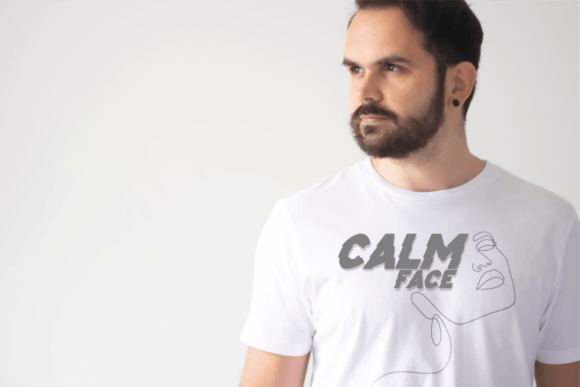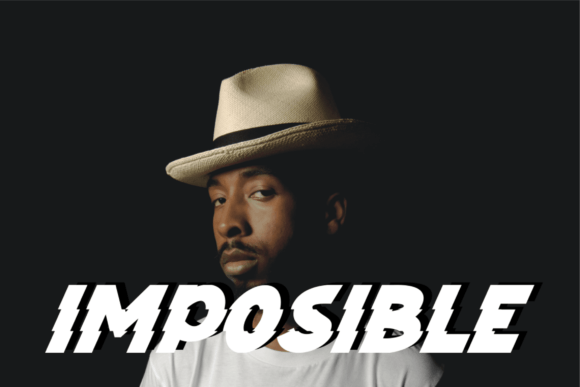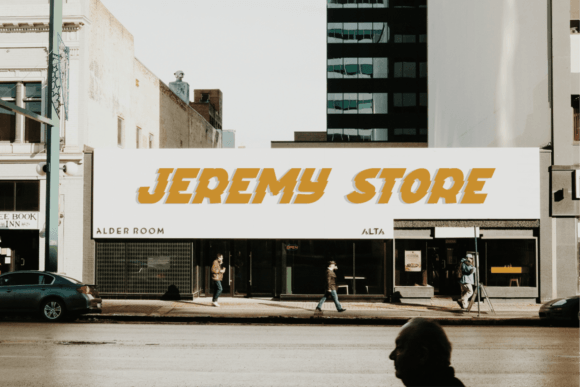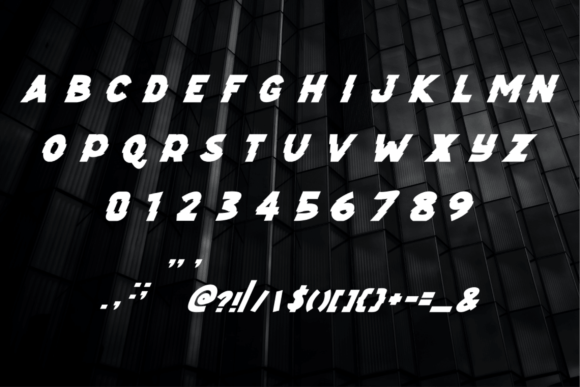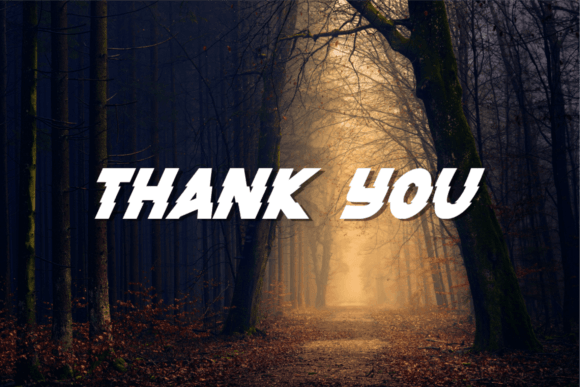
Unleash Your Creativity with Ghostree Font: A Bold and Authentic Display Font
In the world of typography, fonts play a crucial role in conveying messages, expressing emotions, and creating a lasting impression. For designers, crafters, and branding enthusiasts, finding the perfect font can be a daunting task. However, if you’re looking for a bold and authentic display font that can elevate your branding projects, look no further than Ghostree Font. In this article, we’ll explore the features, benefits, and uses of Ghostree Font, and why it’s a must-have for any creative project.
What is Ghostree Font?
Ghostree Font is a bold and authentic display font designed to make a statement. Its unique and striking appearance makes it perfect for a wide range of applications, from logos and t-shirt printing to e-sport and more. The font’s bold and authentic style gives it a distinctive edge, setting it apart from other fonts in the market.
Key Features of Ghostree Font
- Bold and Authentic Style: Ghostree Font boasts a bold and authentic style that commands attention and makes a lasting impression.
- Versatility: The font is suitable for a wide range of contexts, from branding and advertising to e-sport and fashion.
- High-Quality Design: Ghostree Font is designed with precision and attention to detail, ensuring a high-quality appearance in any project.
- Ease of Use: The font is easy to use and can be easily integrated into various design software and platforms.
Benefits of Using Ghostree Font
So, why choose Ghostree Font for your next project? Here are some benefits of using this amazing font:
- Stand Out from the Crowd: With Ghostree Font, you can create unique and eye-catching designs that set you apart from the competition.
- Professional Look and Feel: The font’s bold and authentic style gives your designs a professional look and feel, perfect for branding and advertising projects.
- Time-Saving: Ghostree Font is easy to use and can save you time and effort in creating stunning designs.
Use Cases for Ghostree Font
Ghostree Font is a versatile font that can be used in a variety of contexts. Here are some use cases for this amazing font:
- Logo Design: Create a bold and memorable logo for your brand with Ghostree Font.
- T-Shirt Printing: Design stunning t-shirts with Ghostree Font, perfect for e-sport, fashion, and more.
- E-Sport: Use Ghostree Font to create eye-catching e-sport designs, including jerseys, posters, and more.
- Branding and Advertising: Elevate your branding and advertising projects with Ghostree Font’s bold and authentic style.